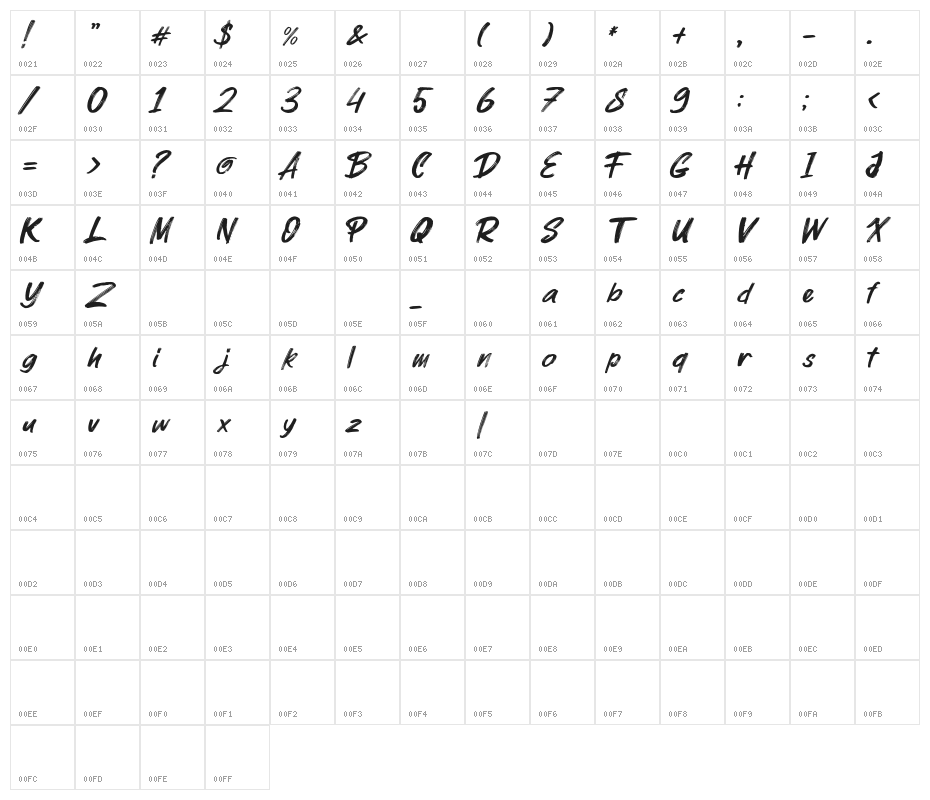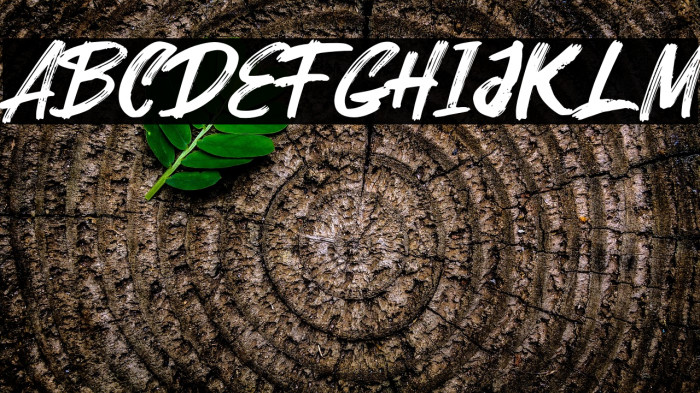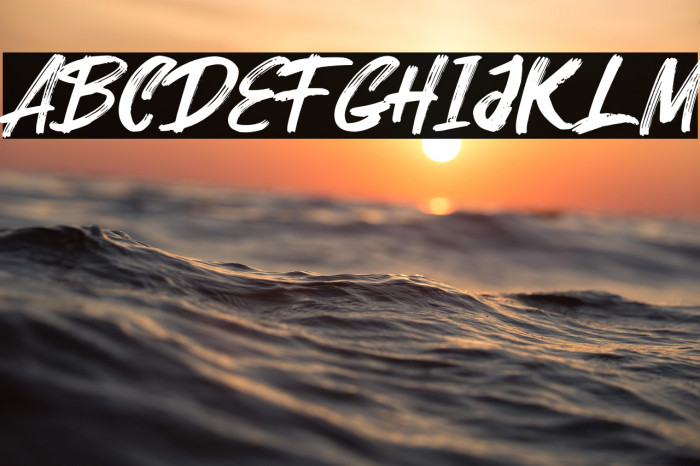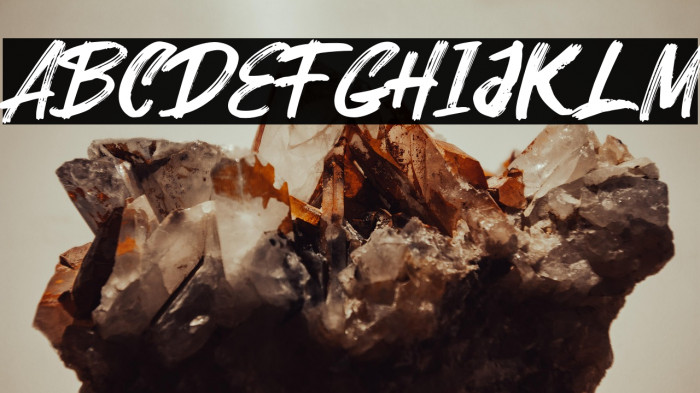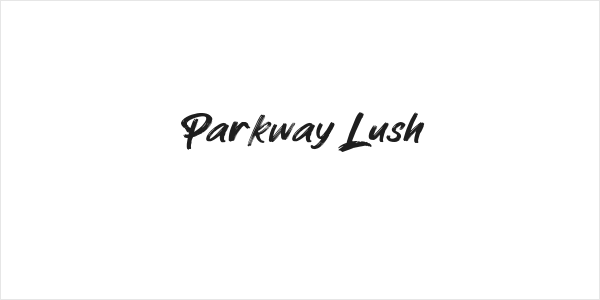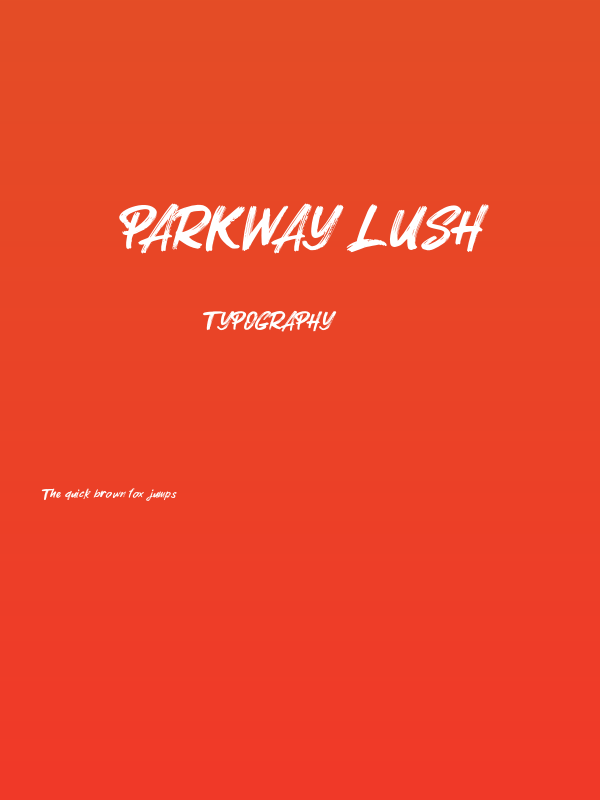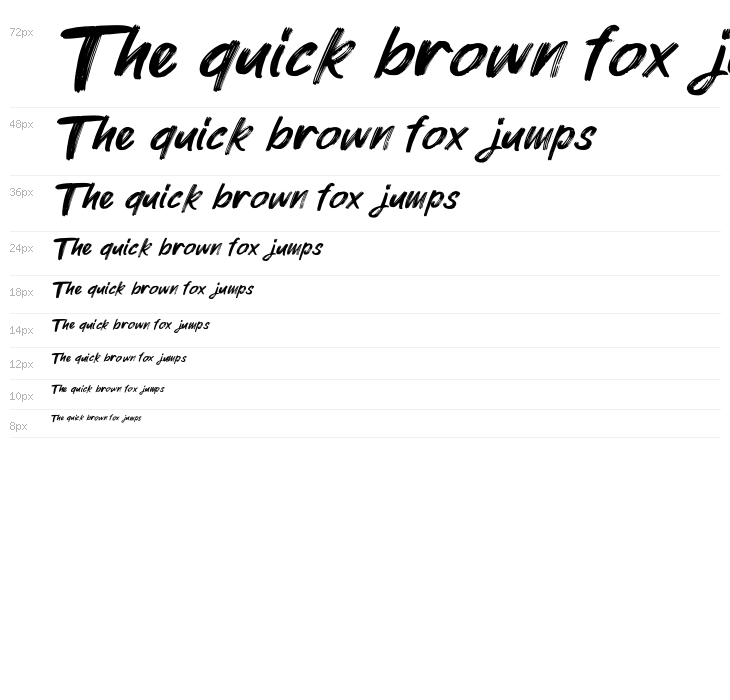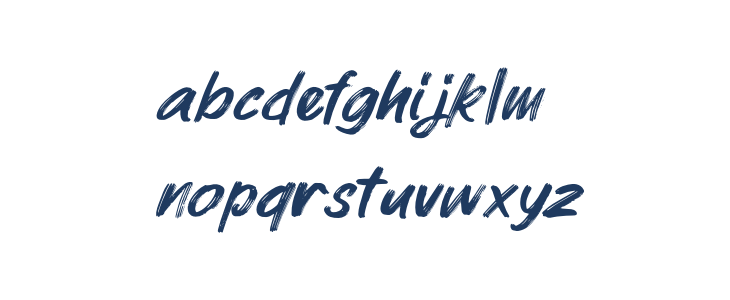
Parkway Lush Font
Parkway Lush Description
This font exudes a bold and energetic style, characterized by its brush-like strokes and dynamic flow. The uppercase and lowercase letters maintain a consistent, fluid motion, giving a sense of movement and spontaneity. The numbers and special characters follow the same energetic style, making them stand out with a unique flair. The overall appearance is both artistic and modern, suitable for projects that require a touch of creativity and boldness. The strokes vary in thickness, adding a textured, hand-painted effect that enhances its visual appeal.
| Overall Style | Modern, Artistic |
| Proposed Projects | Ideal for branding, posters, artistic projects, and any design needing a bold, creative touch. |